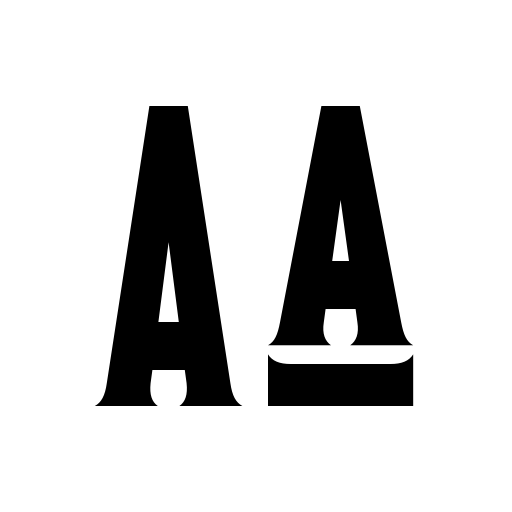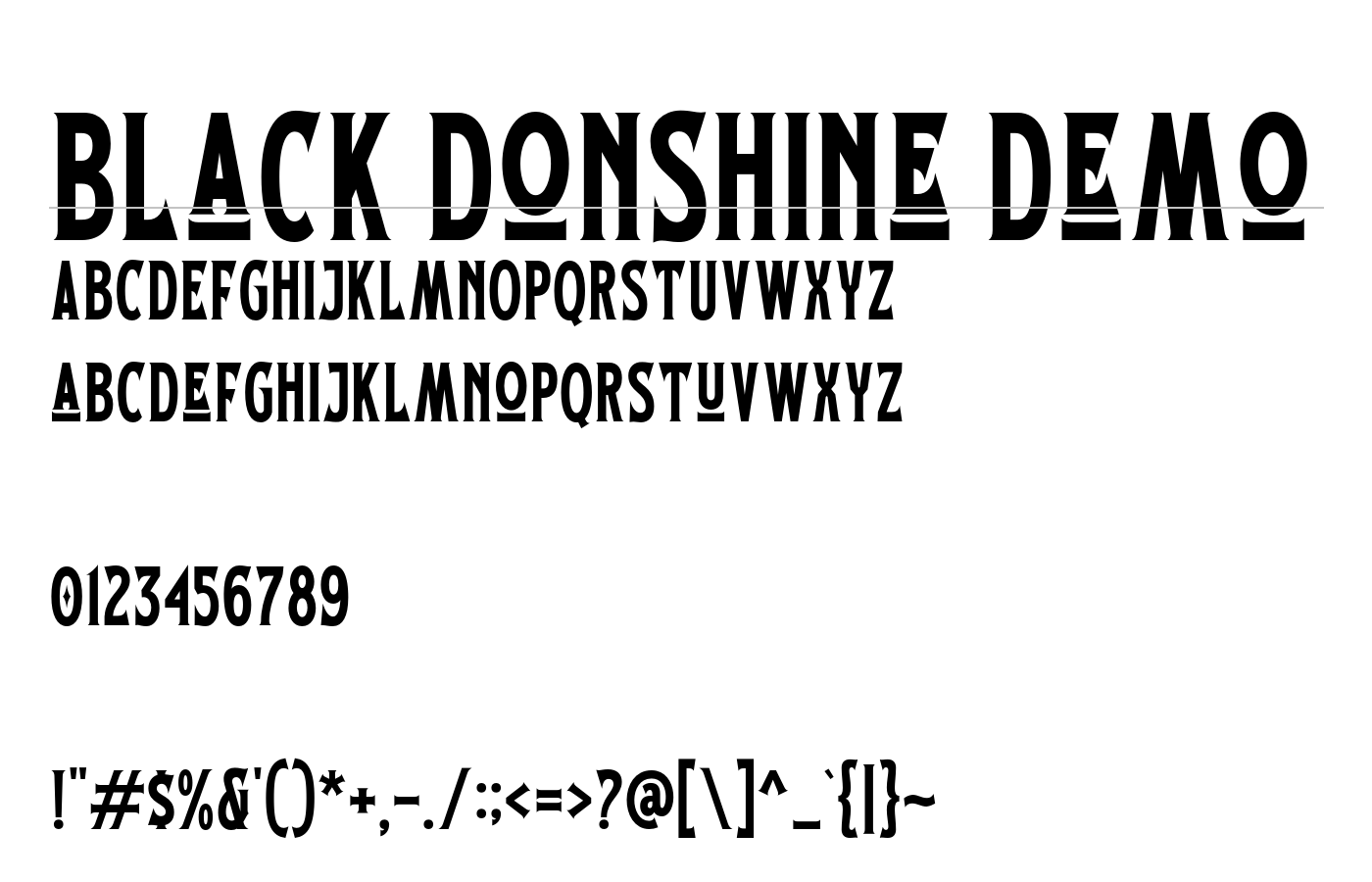
Black Donshine Demo is a bold, condensed serif font featuring high contrast strokes and sharp, bracketed serifs that give it a dramatic, vintage-inspired character. Its unique letterforms and slightly playful shapes make it ideal for eye-catching headlines, logos, and branding that aim to convey a strong, distinctive, and somewhat nostalgic personality. This font works best in creative projects seeking a bold statement with a touch of classic flair.
Black Donshine Demo Font